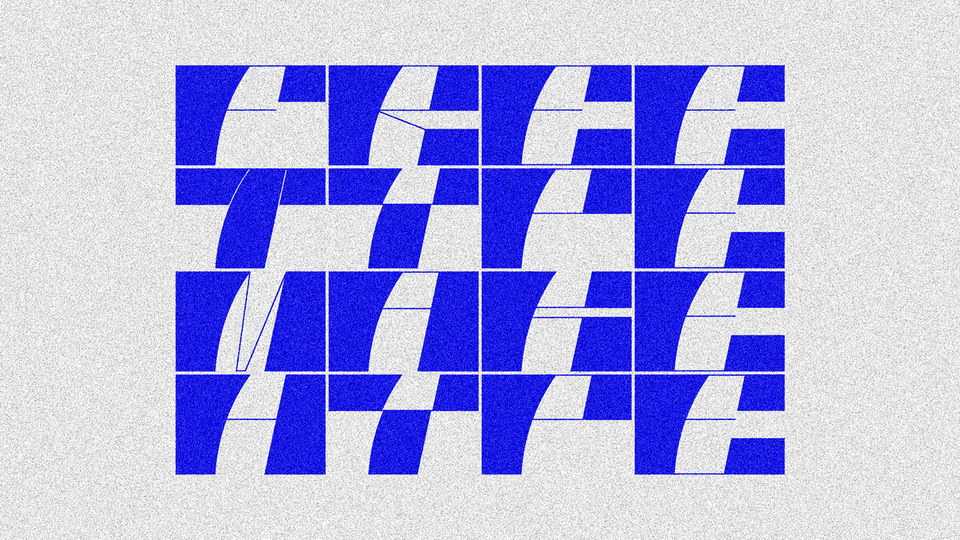
Download Phobos font, a unique display typeface inspired by light and shadows to create striking typography. Phobos is a best choice for super large titles, impact messages, posters, album artworks or typographic compositions.
Designer: Aron Bodnar